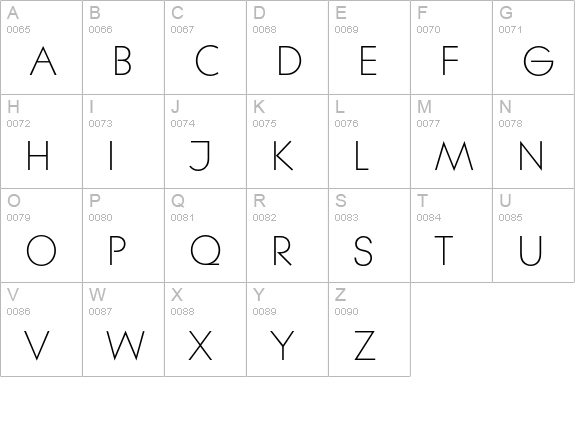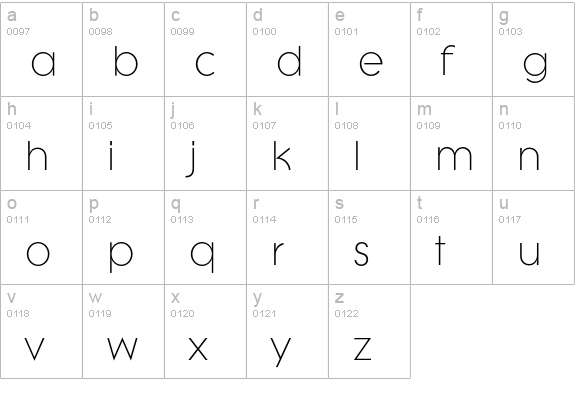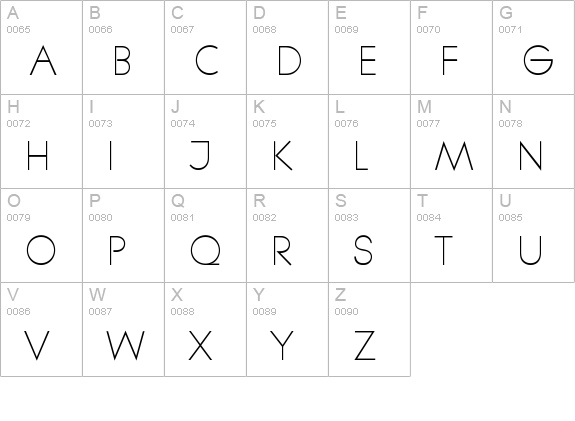
Litera-Light is a refined, elegant variant in the Litera typeface family \xE2\x80\x94 well suited to elegant body text, refined sub-headings, and luxury branding.
Introducing Litera-Light font, a sleek and modern typeface perfect for all your design needs. With its clean lines and elegant curves, Litera-Light exudes sophistication and style. This versatile font is ideal for use in a wide range of projects, from branding and logos to editorial design and web content. What sets Litera-Light apart is its unique blend of simplicity and sophistication, making it suitable for both professional and creative applications. Whether you're designing a sleek corporate identity or a stylish magazine layout, Litera-Light is sure to make your text stand out. Best of all, Litera-Light is available for free download at FontsMarket.com. Simply visit the website to access this stunning font and elevate your designs to the next level. Don't miss out on this opportunity to enhance your projects with the timeless elegance of Litera-Light font.